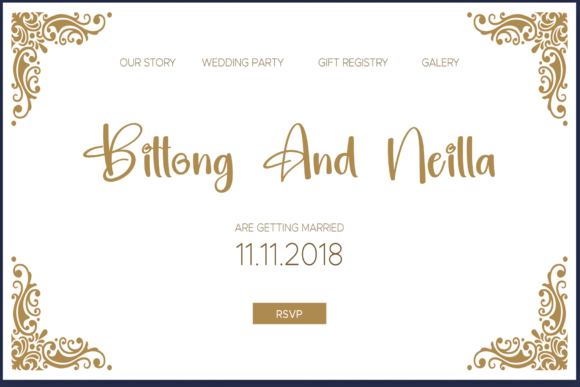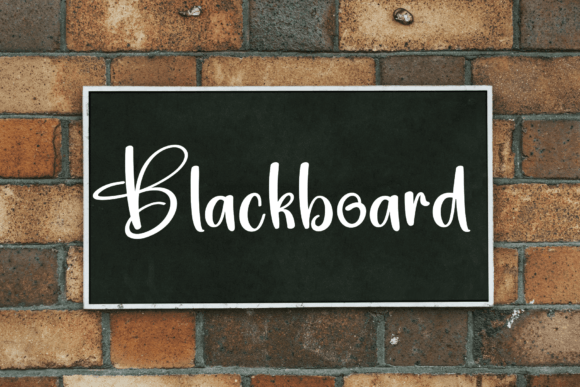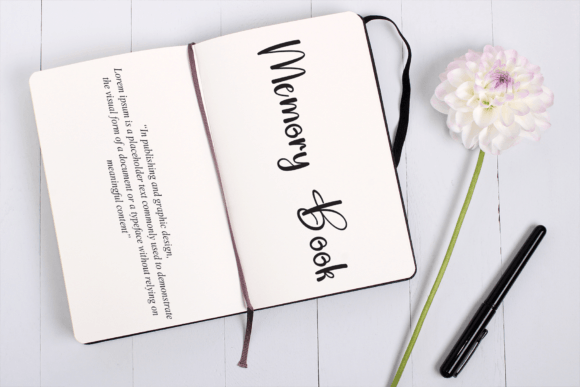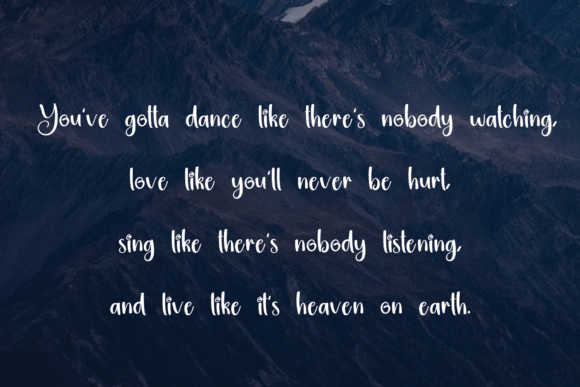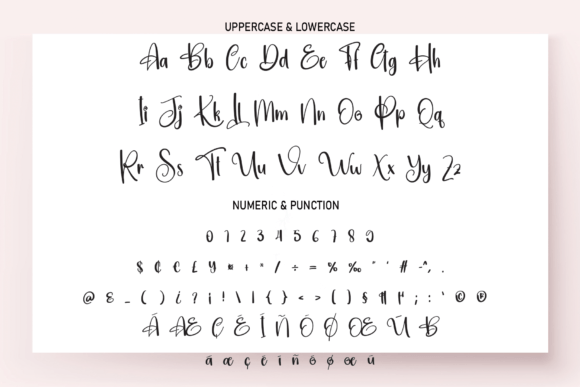
Introducing Handy Font: Elevate Your Designs with Elegance and Sophistication
In the world of typography, a well-crafted font can make all the difference in elevating your designs from ordinary to extraordinary. For designers and crafters seeking a touch of elegance and sophistication, Handy Font is an exceptional choice. This beautiful script font boasts a contemporary atmosphere and impeccable form, drawing inspiration from timeless classic calligraphy.
The Perfect Balance: Not Too Thin, Not Too Thick
One of the standout features of Handy Font is its expertly balanced design. Unlike some fonts that may be too thin or too thick, Handy strikes the perfect chord. Its strokes are carefully crafted to be neither too delicate nor too bold, ensuring that your text remains legible and visually appealing across various mediums. This balance makes Handy an incredibly versatile font, suitable for a wide range of applications, from branding and advertising to packaging and stationery.
Variety and Legibility: A Winning Combination
Handy Font also boasts a varied and legible design, making it perfect for longer texts and body content. The characters are thoughtfully designed to flow smoothly into one another, creating a harmonious and natural reading experience. This aspect is particularly beneficial for designers working on projects that require a more substantial amount of text, such as blog posts, articles, or even book designs.
Inspiration from Timeless Classic Calligraphy
Handy Font draws its inspiration from the world of classic calligraphy, infusing it with a modern twist. The result is a font that feels both nostalgic and contemporary, capable of adding a touch of sophistication to any project. Whether you’re working on a luxury brand identity, a wedding invitation, or a high-end product label, Handy Font’s classic undertones will undoubtedly enhance the aesthetic and perceived value of your design.
Enhance the Beauty of Your Projects
The primary goal behind the creation of Handy Font was to provide designers with a tool that could effortlessly elevate the beauty of their projects. Whether you’re a seasoned professional or an enthusiastic crafter, Handy offers the perfect blend of elegance, legibility, and versatility. By incorporating Handy into your designs, you can add a level of sophistication and refinement that sets your work apart from the rest.
Applications of Handy Font
The applications of Handy Font are vast and varied. Here are a few ideas to get you started:
- Branding and Identity: Use Handy Font for logos, business cards, and letterheads to create a lasting impression.
- Wedding and Event Stationery: Add a touch of elegance to your wedding invitations, menus, and programs.
- Packaging Design: Elevate your product labels and packaging with a sophisticated and eye-catching font.
- Digital Content: Use Handy Font for blog headers, social media graphics, and website titles to create a cohesive brand image.
Handy Font is more than just a script font – it’s a design tool that can transform your projects with its elegance, sophistication, and versatility. Inspired by the timeless beauty of classic calligraphy, yet distinctly modern in its approach, Handy is poised to become a favorite among designers and crafters alike. Whether you’re looking to add a touch of luxury to your branding, create stunning event stationery, or simply elevate your digital content, Handy Font is an exceptional choice. Discover the difference Handy can make in your designs today.